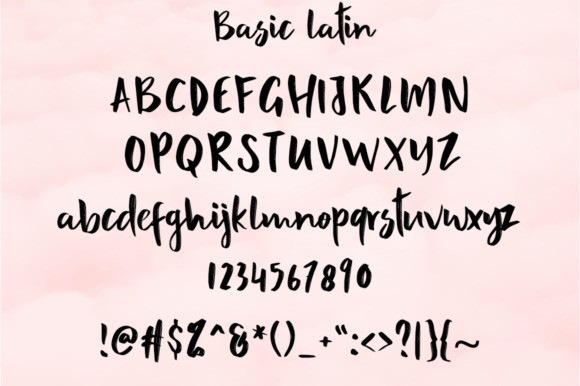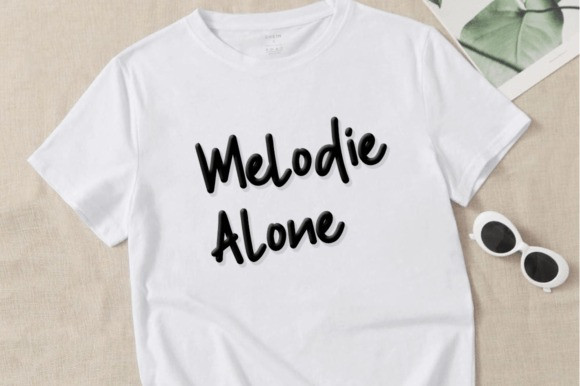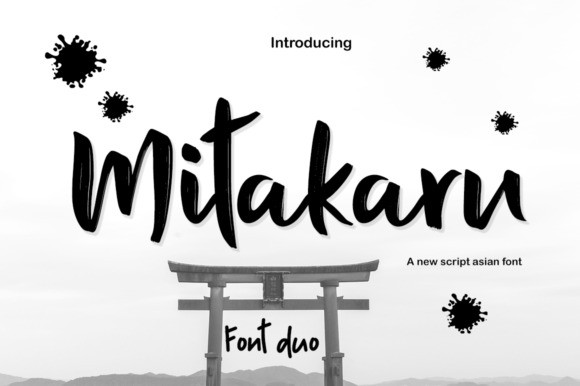
Mitakaru Brush Font
Mitakaru Brush Font, this font is casual and beautiful with swash. Can be used for various purposes. such as logos, product packaging, wedding invitations, branding, headlines, signage, labels, signatures, book covers, posters, quotes, and more.